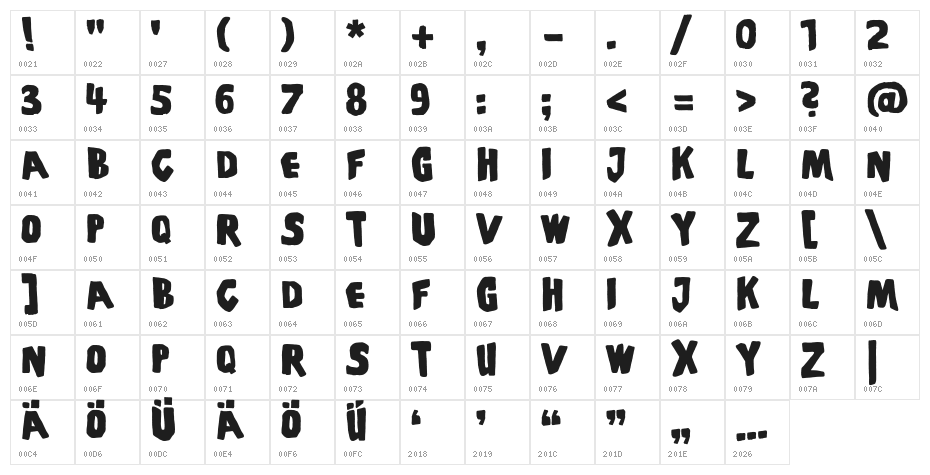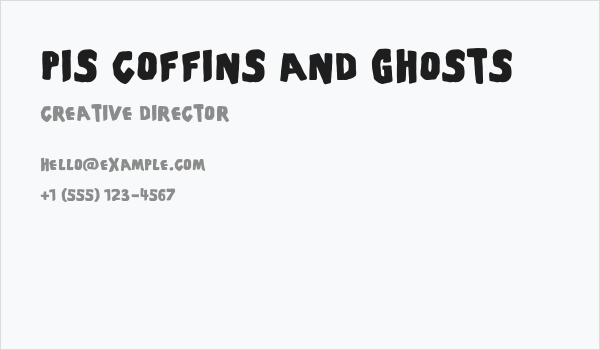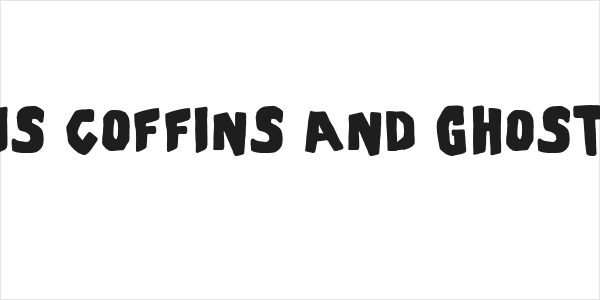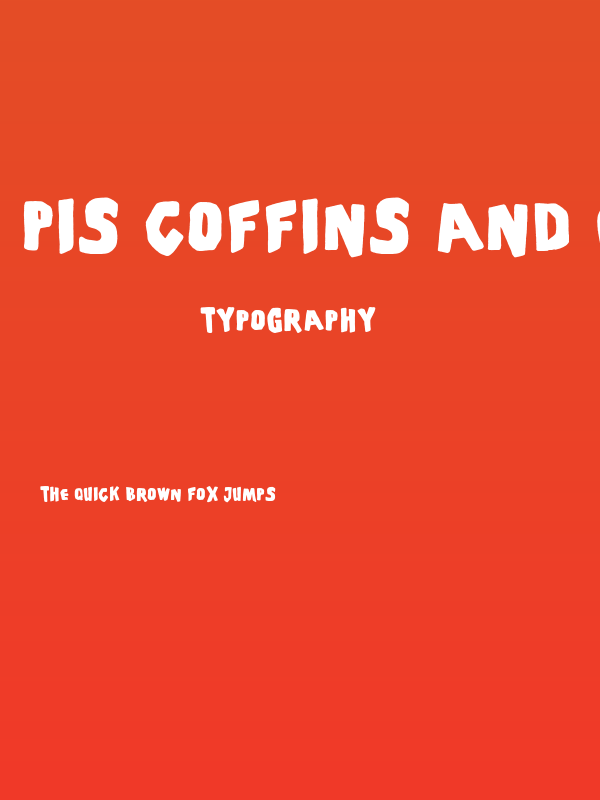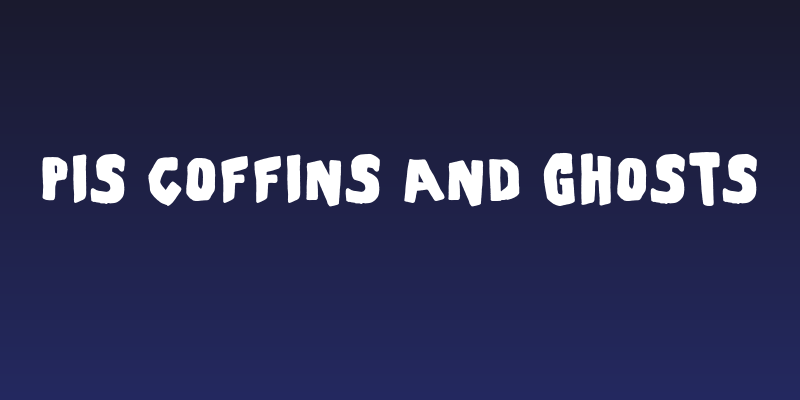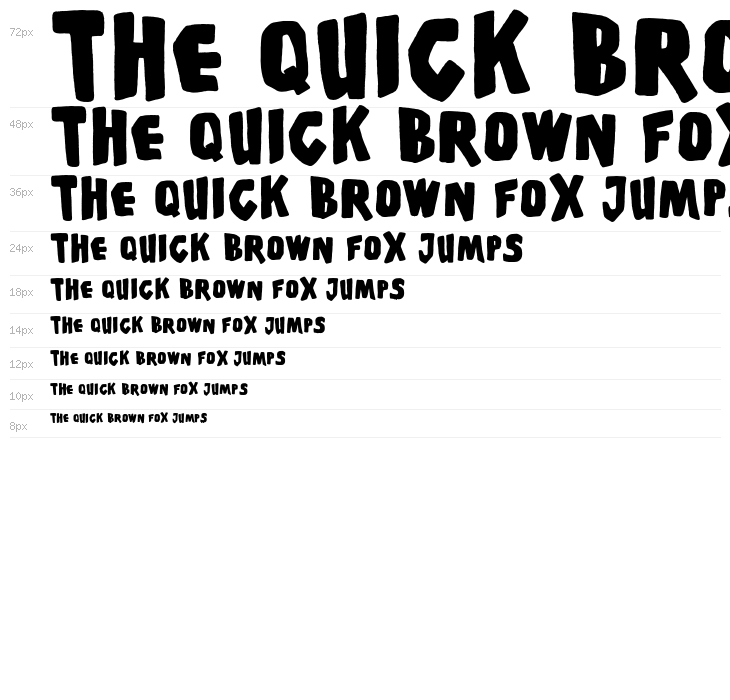
PiS Coffins and Ghosts Font
PiS Coffins and Ghosts Description
This font features a bold and playful design with a hand-drawn aesthetic. The letters are irregular and slightly uneven, giving it a quirky and informal appearance. The strokes are thick and consistent, providing a strong visual impact. The overall style is reminiscent of a vintage or retro theme, with a touch of whimsy. The characters are well-spaced, ensuring readability while maintaining a casual feel. This font is suitable for projects that require a fun and engaging look, such as children's books, posters, or creative branding.
| Overall Style | Vintage, Playful |
| Use Case | Headlines, Posters, Creative Branding |
| Proposed Projects | Ideal for children's books, posters, creative branding, and playful designs. |